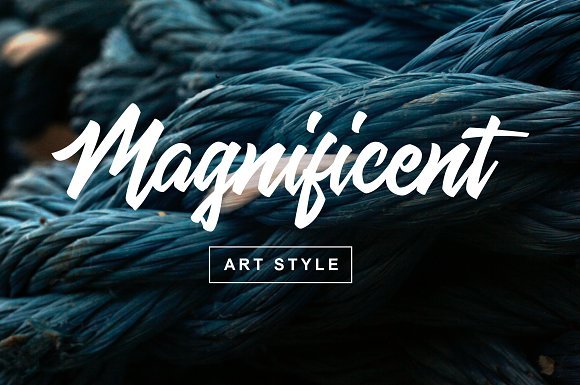
Alentine Script Font
Introducing Alentine Script Font! Alentine Typeface designed by Blankids Studio, this is a premium font, are sold on creativemarket, but it was great, it is free today for download. Alentine is a Clean and stylish script typeface. Very ideal for logos, name tag, quotes, packaging, merchandise, greeting cards. Alentine contains a full set of lower & uppercase, alternative characters, punctuation, numerals.